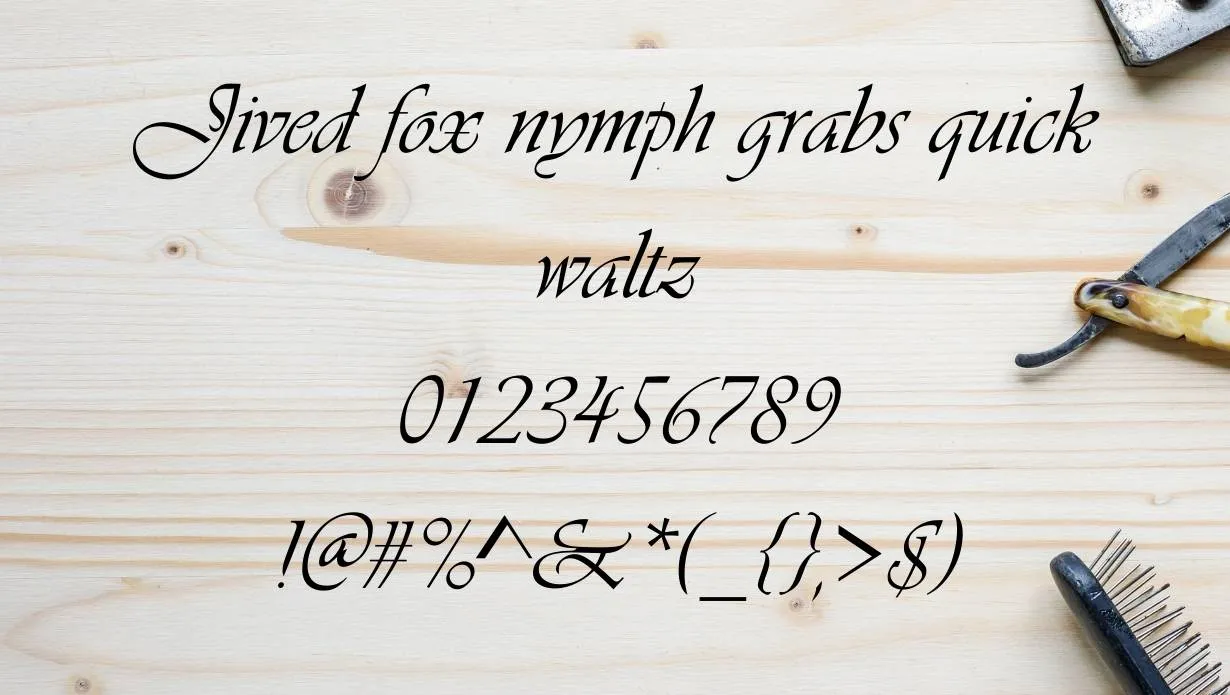
Vivaldi Font is a font created by Duke University graduate student Thomas Phinney and released by the American Type Founders in 2002. This Font was designed to be highly readable at small sizes and on low-resolution displays. This Font family includes six weights, from extra light to black.
This Font is named for the Italian composer Antonio Vivaldi. This Font family is based on the proportions of the classic Venetian typefaces, which were used extensively by Vivaldi and other Italian composers in the 17th and 18th centuries.
If you are looking for a font that is easy to read, This Font may be the right choice for you. This font is perfect for body text, headlines, and other display purposes. This Font works well on both digital and print media.
Who Used Vivaldi Font?
This Font is best used for body text, particularly in smaller sizes. This Font can also be used for headlines and other display purposes. This Font works well on both digital and print media.
This font style is also very good for people with vision problems, as it is highly readable. This font style is very advantageous for people with dyslexia as well.
This Font family includes six weights, from extra light to black. This allows you to choose the right weight for your project. This Font is available under the Open Font License, which allows for both personal and commercial use. This Font is a good choice for businesses and individuals alike.
Vivaldi Font Family Appearance
| Name | Vivaldi Font |
| Designer | Thomas Phinney |
| Style | Calligraphy |
What is Vivaldi font?
This Font is a font created by Duke University graduate student Thomas Phinney and released by the American Type Founders in 2002.
What does Vivaldi font look like?
Some fonts that look similar to this Font include Times New Roman, Arial, and Verdana.